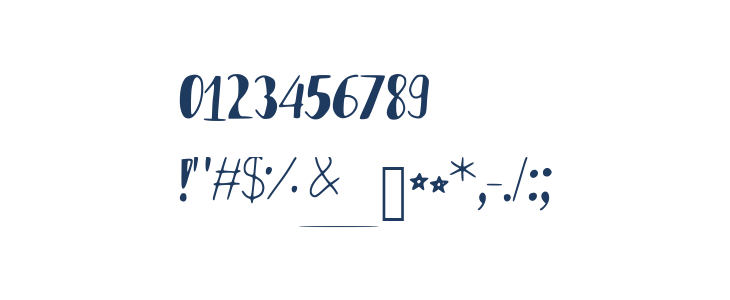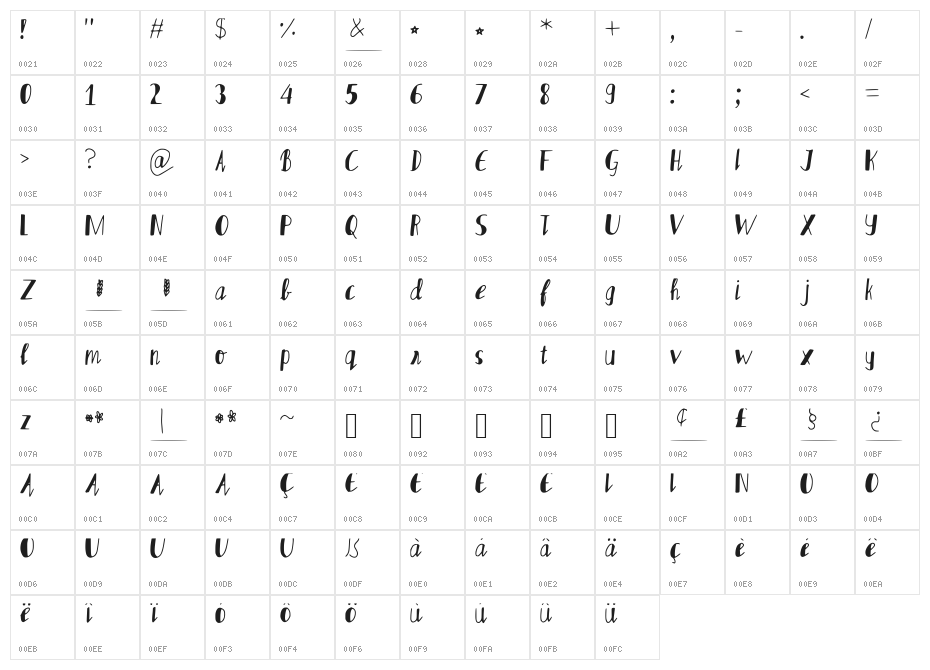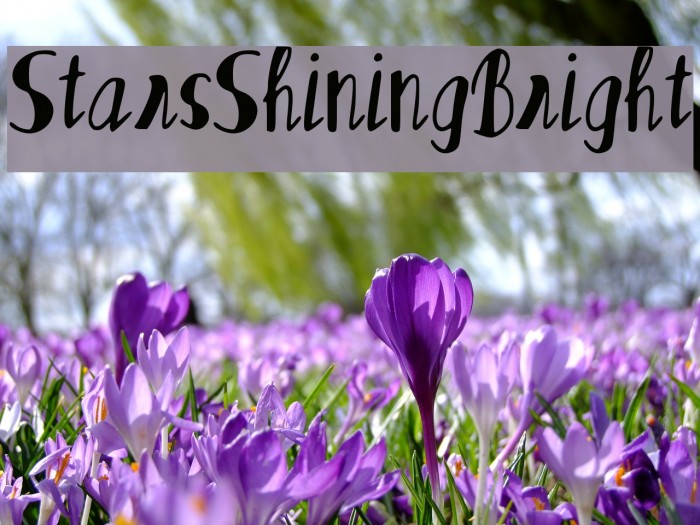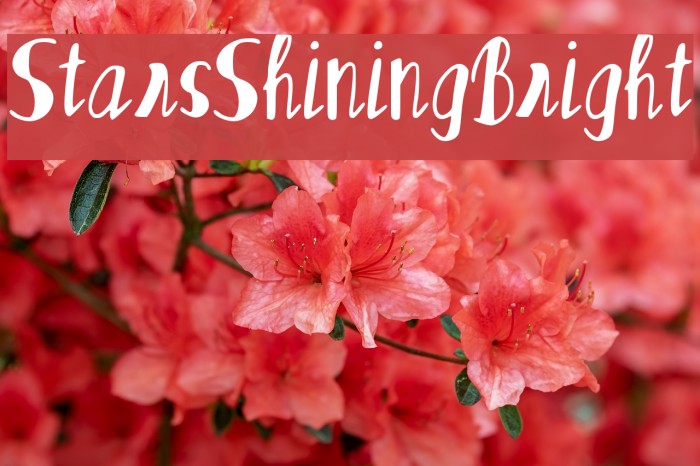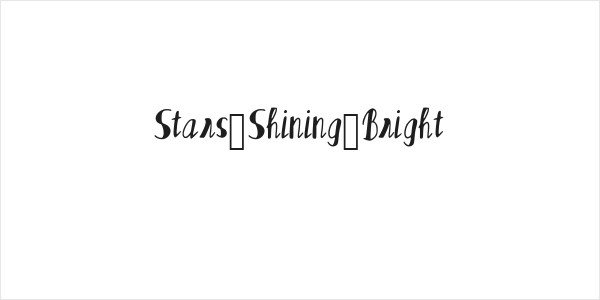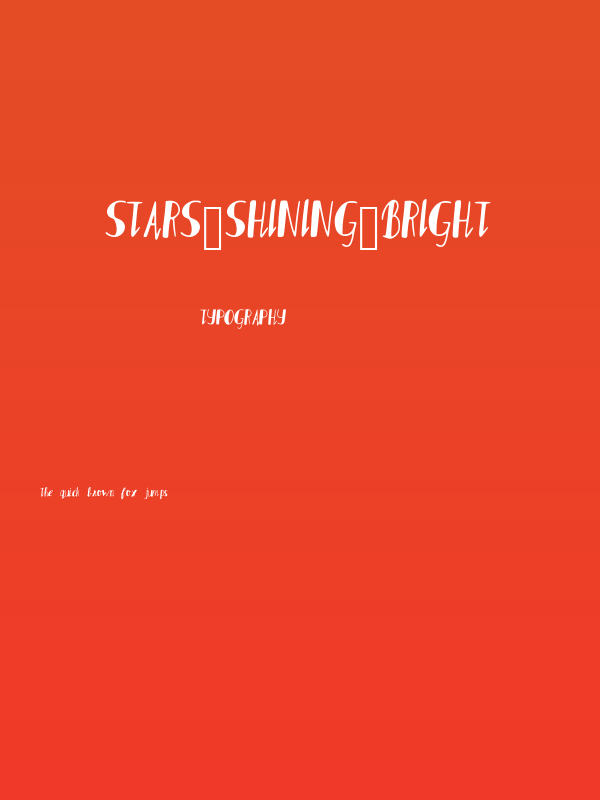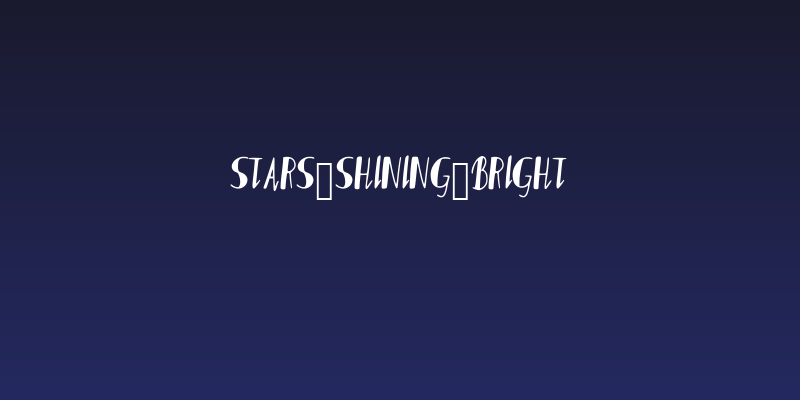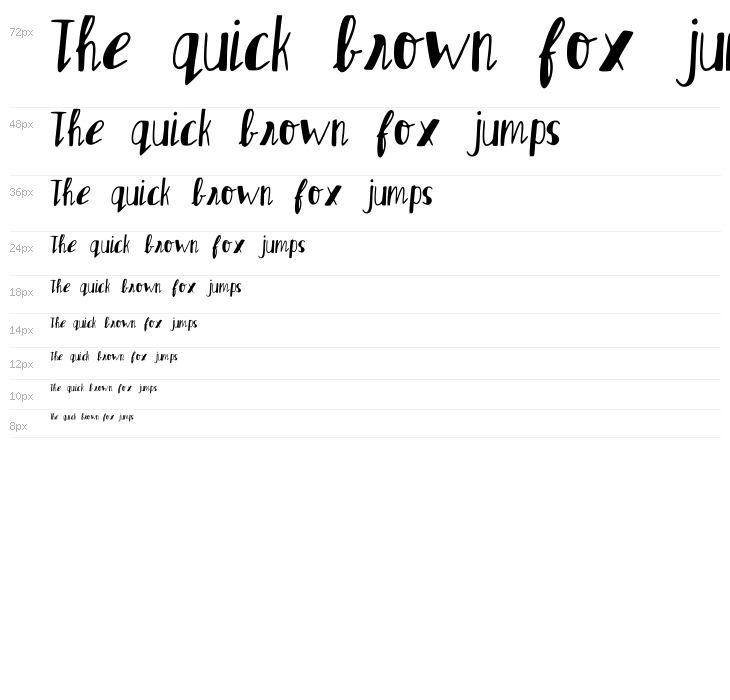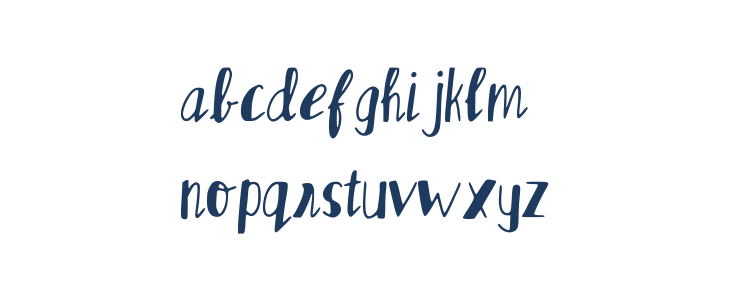
Stars_Shining_Bright Font
Stars_Shining_Bright Description
This font features a dynamic and playful style with a handwritten appearance. The uppercase letters are bold and slightly slanted, giving a sense of movement and energy. The lowercase letters maintain a consistent flow, with some characters exhibiting unique flourishes that add to the font's charm. The numbers are bold and clear, ensuring readability. Special characters are creatively designed, maintaining the overall whimsical feel. The font's style is suitable for projects that require a lively and informal touch.